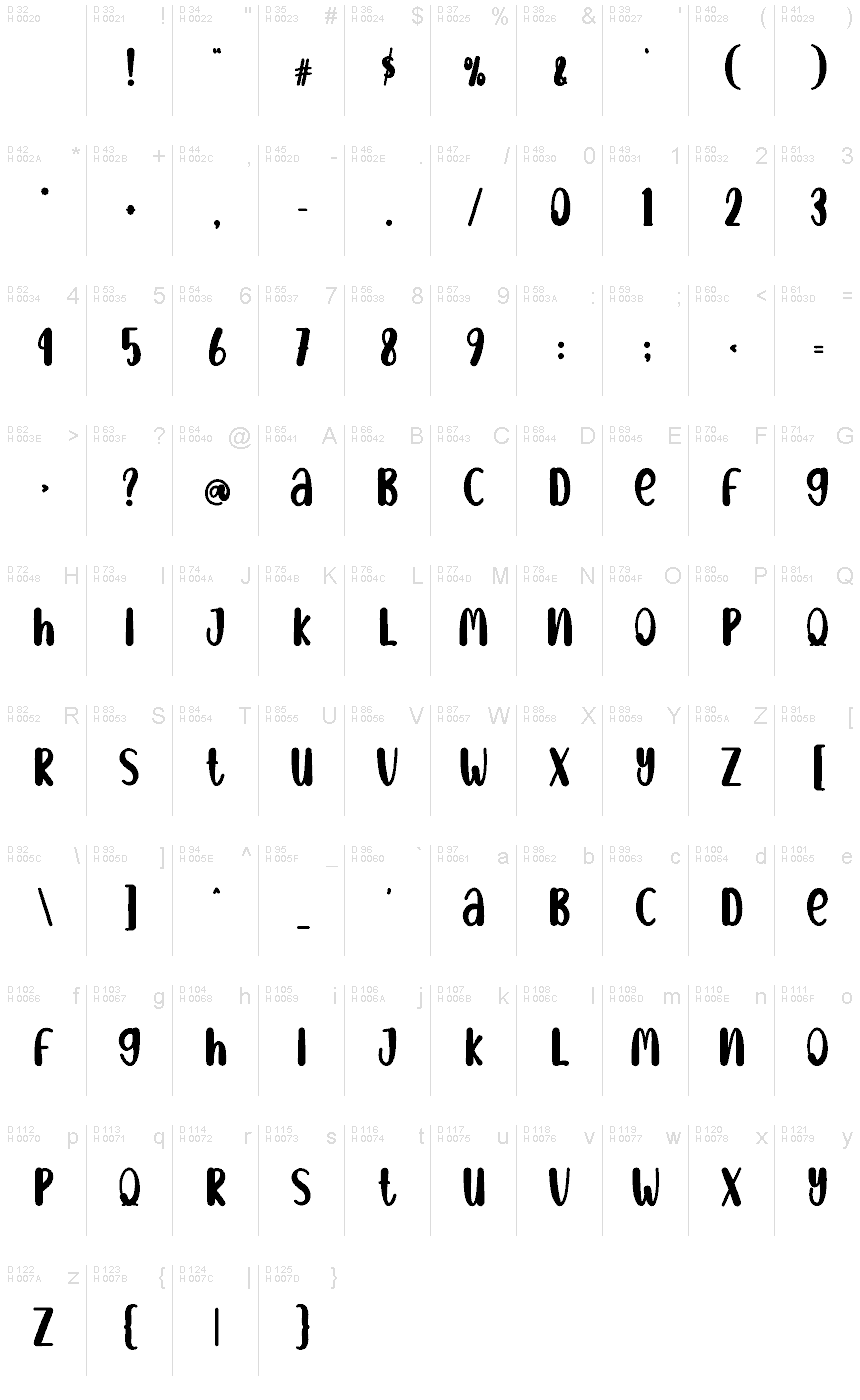
Recend
Recend font by Andi Moz is a cute sweet handwritten type with plenty of personality. Built with the cartoon style, it is bold, condensed, and curvy in for well-balanced smooth characters. Along with an obvious significant casual tone, its bright playful personality allows for readers of all ages to gladly engage.
This free display font is most suitable for wedding invitations, stationery design, greeting and birthday cards. It can also be used on packed products (food & drinks), adding text in children’s books or toys box design. Both logo designers and advertisers will find it handy whether online or offline.